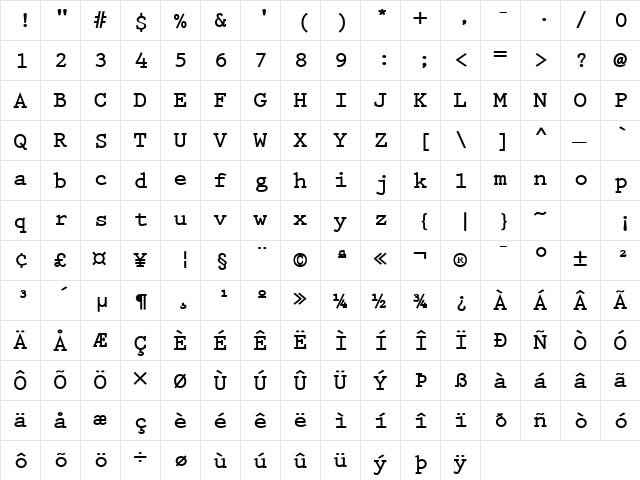
Prestige Elite Bold
Design Context for Prestige Elite Typeface
Prestige Elite offers clean, dependable letterforms without strong stylistic allegiance, making it a practical choice for designers who need flexibility. The heavy weight commands attention and anchors typographic hierarchies.